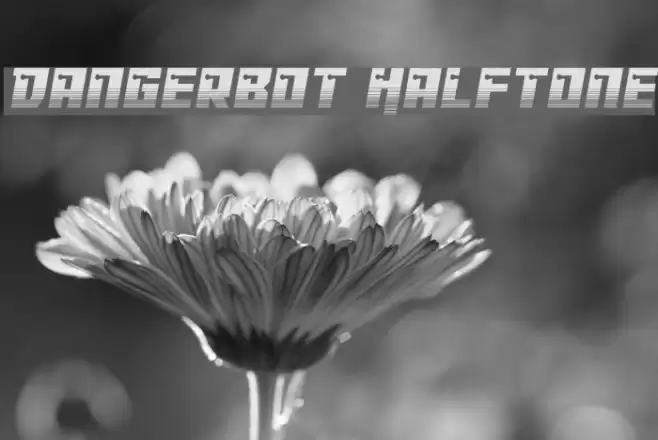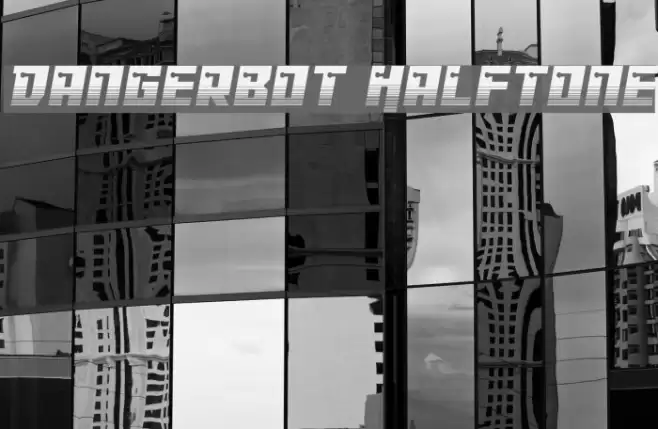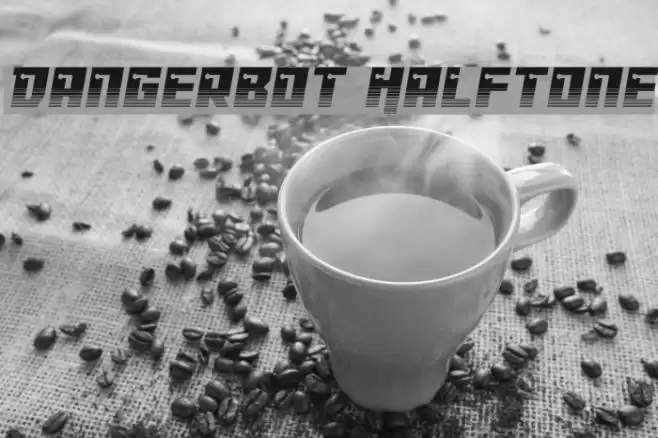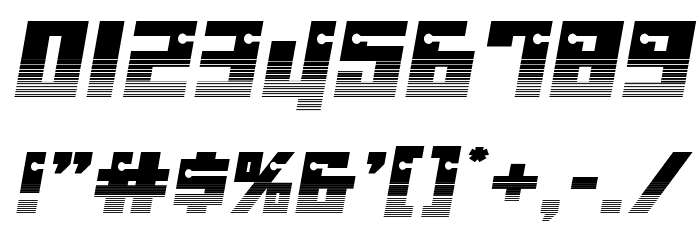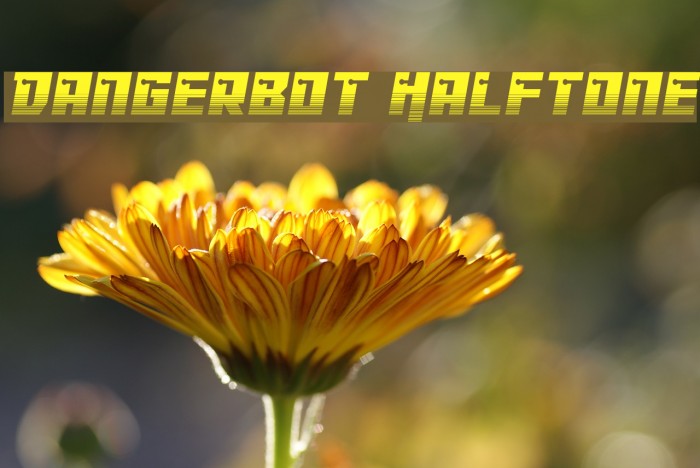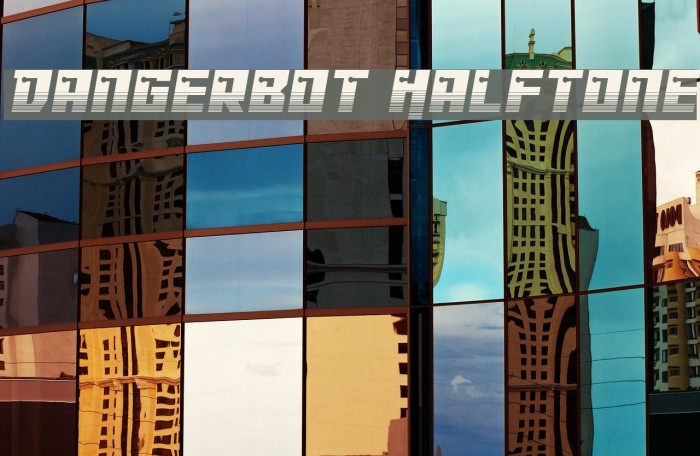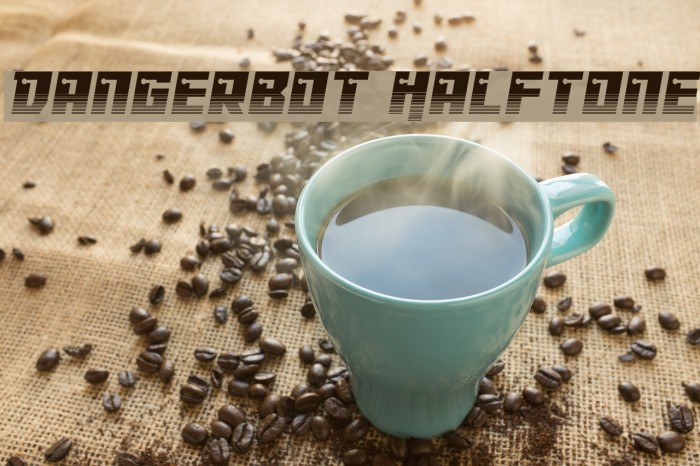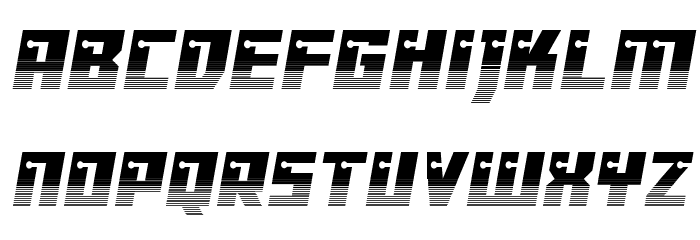
Dangerbot Halftone Font
Dangerbot Halftone Description
This font features a bold, futuristic design with a halftone effect that gives it a dynamic and energetic appearance. The characters are constructed with a strong geometric structure, incorporating sharp angles and a distinct gradient pattern that transitions from solid black to white. This creates a sense of movement and depth, making it ideal for attention-grabbing designs. The uppercase and lowercase letters maintain a consistent style, while the numerals and special characters are crafted to match the overall aesthetic. The font's unique style is perfect for projects that require a modern and edgy look.
A bold, futuristic font with a halftone gradient effect and geometric structure from Sci-fi fonts.
- Proposed Projects: Ideal for sci-fi themed posters, video game graphics, tech branding, and futuristic event flyers.